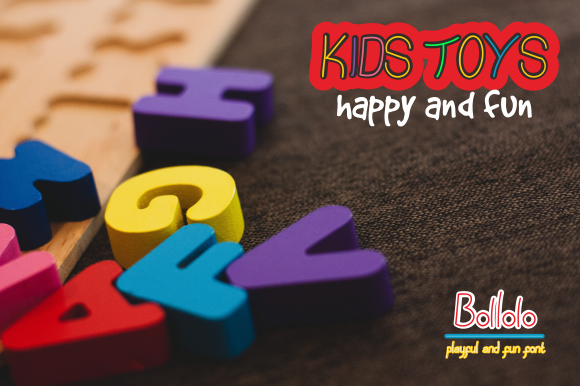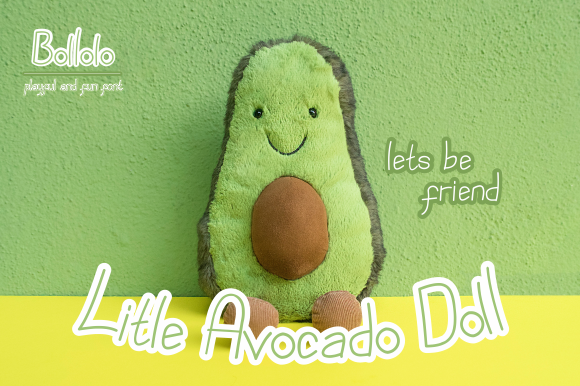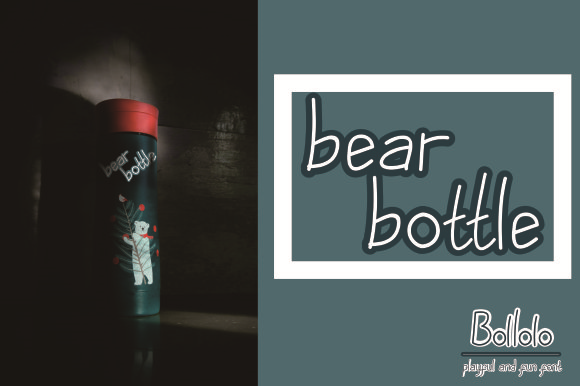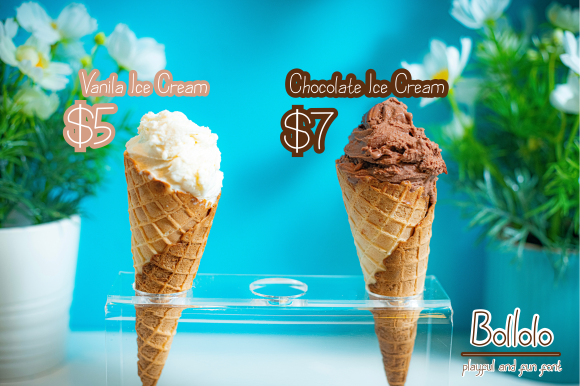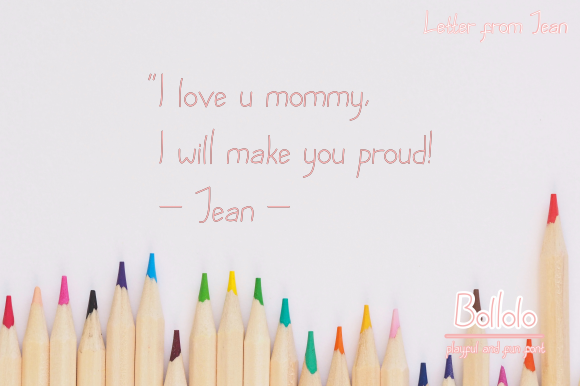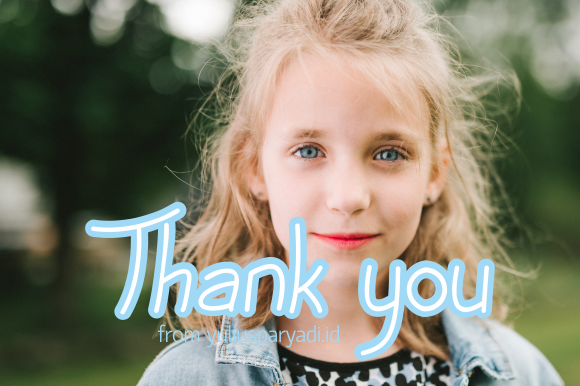
Bollolo Font: A Sweet and Simple Handwritten Delight
Are you a designer or crafter looking for a font that can add a personal touch to your projects? Look no further than the Bollolo Font! This sweet and simple handwritten font is perfect for a wide range of designs, from creative crafts to digital products. In this article, we’ll dive into the features and benefits of Bollolo Font, and explore how it can elevate your designs to the next level.
The Charm of Bollolo Font
Bollolo Font is a beautifully crafted handwritten font that exudes a sense of simplicity and elegance. Its natural and unique style makes it incredibly fitting for a large pool of designs, from rustic and vintage to modern and minimalist. The font’s sweet and charming appearance is sure to capture the attention of your audience and leave a lasting impression.
What Makes Bollolo Font So Versatile?
The versatility of Bollolo Font lies in its effortless ability to adapt to different design styles and themes. Whether you’re creating a:
- Handmade craft project, such as a knitting pattern or a scrapbook
- Digital product, like a printable art or a social media graphic
- Branding material, such as a logo or a business card
Bollolo Font is the perfect choice. Its simplicity and elegance ensure that it won’t overpower your design, while its unique charm adds a touch of personality.
Key Features of Bollolo Font
Here are some key features that make Bollolo Font a must-have for designers and crafters:
- Handwritten style: Bollolo Font has a beautiful, handwritten appearance that adds a personal touch to your designs
- Simple and elegant: The font’s simplicity and elegance make it easy to read and versatile for various design applications
- Unique charm: Bollolo Font has a distinctive charm that sets it apart from other fonts and adds a touch of personality to your designs
- Wide range of uses: From crafts to digital products, Bollolo Font is perfect for a wide range of design projects
How to Use Bollolo Font in Your Designs
Using Bollolo Font in your designs is easy! Here are some tips to get you started:
- Pair it with other fonts: Combine Bollolo Font with other fonts to create a unique and visually appealing design
- Experiment with colors: Try out different colors and textures to add depth and interest to your design
- Play with sizes: Use Bollolo Font in different sizes to create visual hierarchy and emphasis
In conclusion, Bollolo Font is a sweet and simple handwritten font that is perfect for designers and crafters looking to add a personal touch to their projects. Its natural and unique style makes it incredibly fitting for a wide range of designs, and its versatility ensures that it can be used in various design applications. With Bollolo Font, the only limit is your imagination!